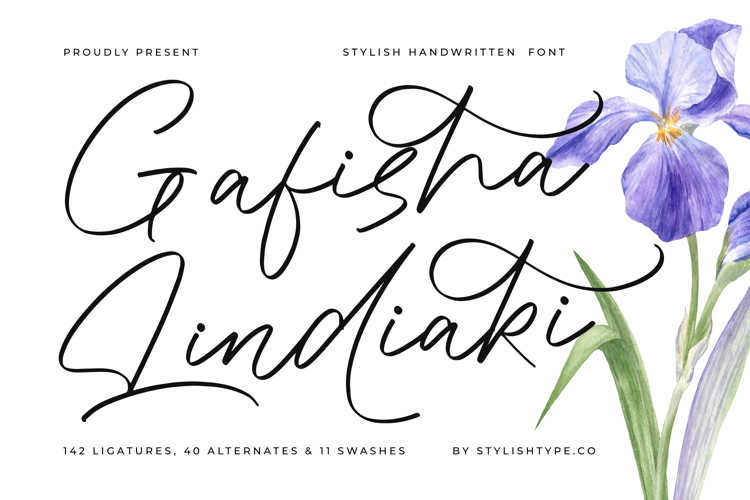
Gafisha Lindiaki - Stylish Handwritten Font
Romeland Sanctuary - Stylish Handwritten Font adapts seamlessly across global markets, making it incredibly versatile for international projects. This technical adaptability ensures consistent, high-quality typography whether you are designing assets for domestic or broad geographical distribution, solidifying its place as an essential tool for global brands.